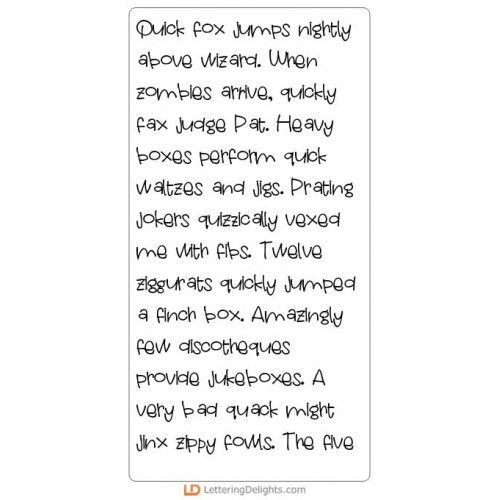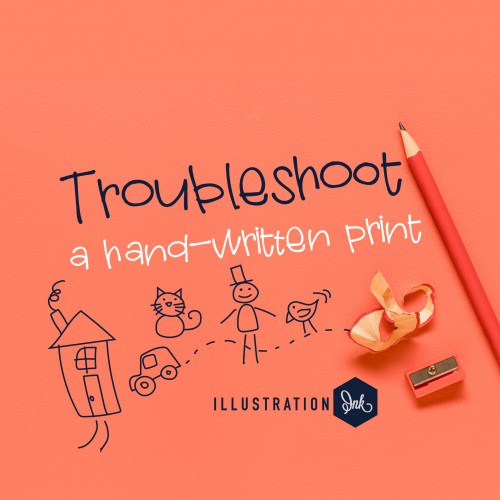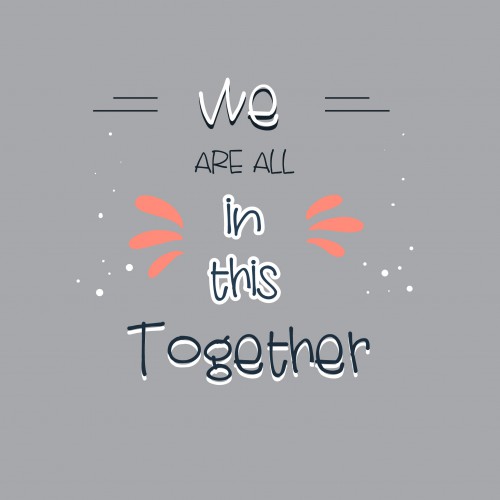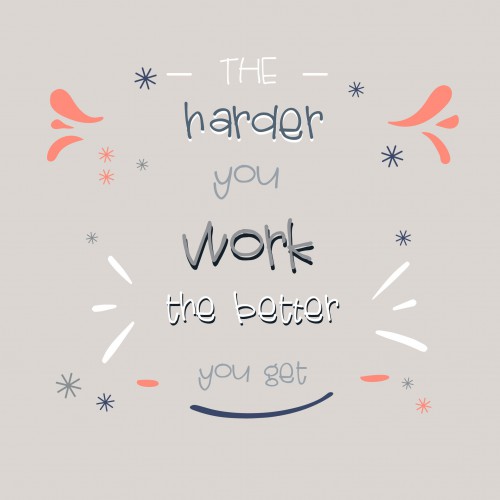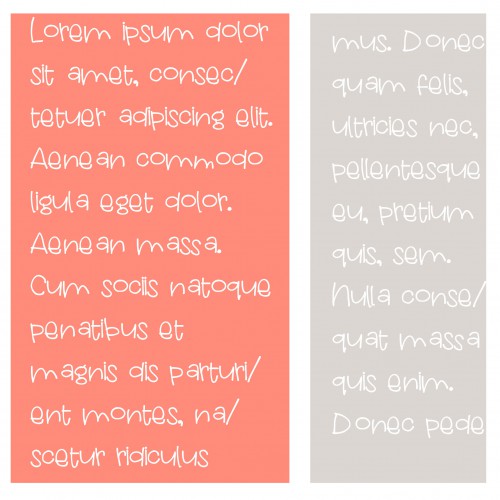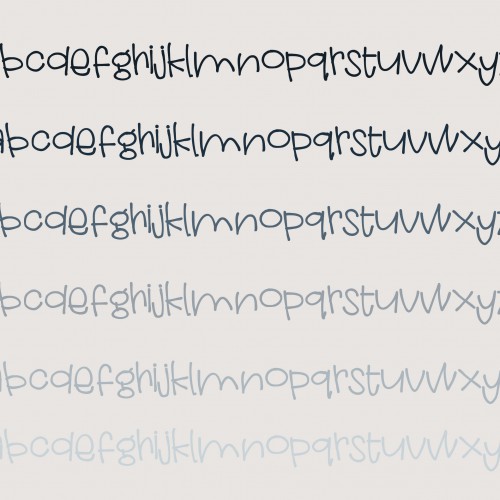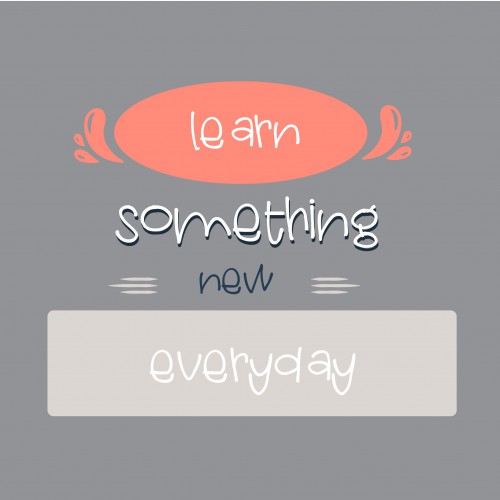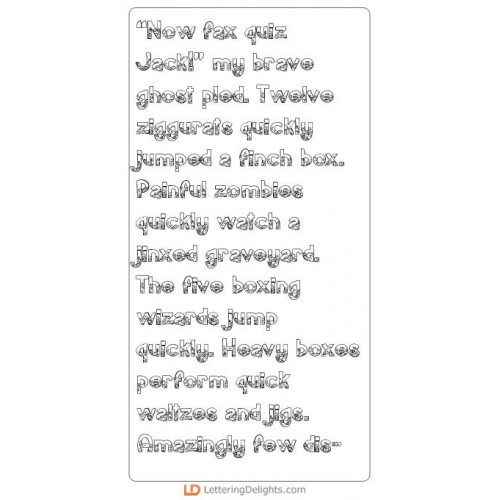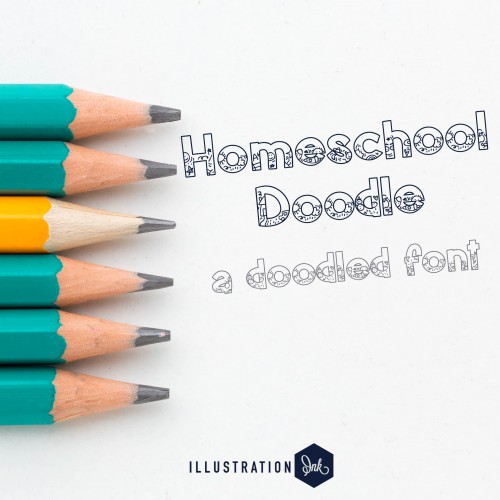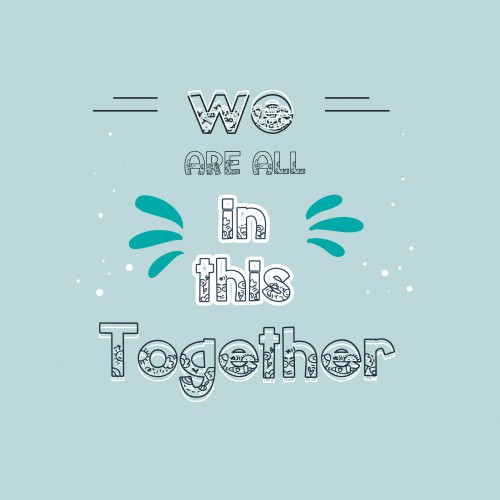
Sch-doodle 3 - Font Bundle
This fun school bundle features ten all new, school-influened fonts.
• ZP Troubleshoot - FN
• PN Homeschool Doodle - FN
• PN Crayon Hand - FN
• ZP Boozy Bookworm - FN
• ZP Music Class - FN
• ZP Bookcase - FN
• ZP Elementary Hand - FN
• ZP Pens and Pencils - FN
• ZP Physical Education - FN
• PN Band Bop - FN
ZP Troubleshoot - FN
This hand-written, sans serif is a youthful font that looks like it was printed by a child...
PN Homeschool Doodle - FN
This hand-crafted, hollow-out font is filled w/ children's school doodles...
PN Crayon Hand - FN
This hand-crafted sans serif font has scratchy texture that looks like it was written by a crayon...
ZP Boozy Bookworm - FN
This hand-crafted font features a number of bookworms and books...
ZP Music Class - FN
This hand-crafted font features music throughout with a bit of a 3d shadow...
ZP Bookcase - FN
This hand-printed font features books throughout...
ZP Elementary Hand - FN
This very youthful font looks like it was printed by an elementary school child...
ZP Pens and Pencils - FN
This silly sans serif font features a number of pens and pencils throughout...
ZP Physical Education - FN
This fun font features a variety of sports equipment popular in many P.E. classes...
PN Band Bop - FN
This cute outline font features animals in a school band on the uppercase...